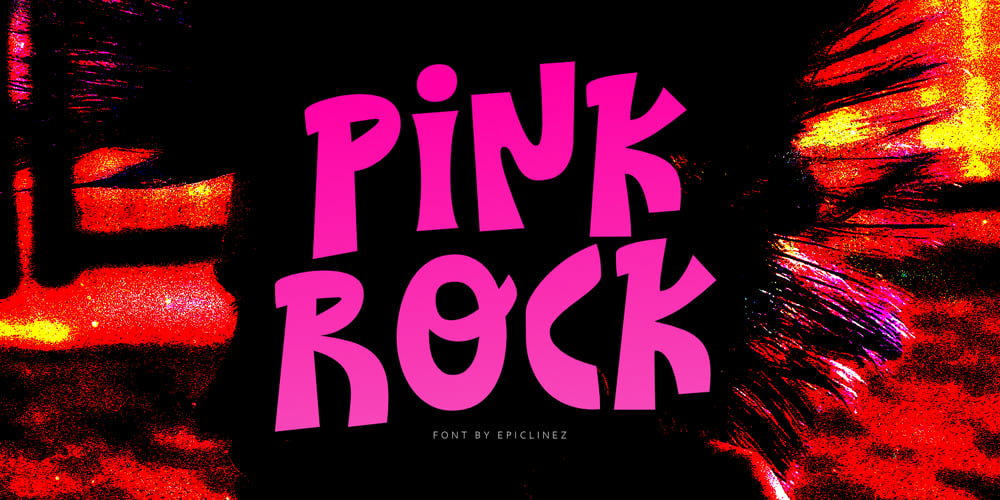
Pink Rock Font Family was designed by Aldy Sidik and published by Epiclinez. Pink Rock contains 1 styles and family package options. Get ready to rock your designs with Pink Rock, a bold and edgy display font This bad boy is perfect for grabbing attention and making a statement. Whether you’re designing a punk rock-inspired magazine cover, creating a rebellious brand identity, or adding some oomph to your product packaging, Pink Rock will bring your visuals to life. Unleash your inner rebel with the power of typography – choose Pink Rock today and let your designs rule the world!Pink Rock features : Standard Latin Numbers, symbols, and punctuations Multilingual Support. Fully accessible without additional design software Simple Installations Works on PC & Mac Thank You.